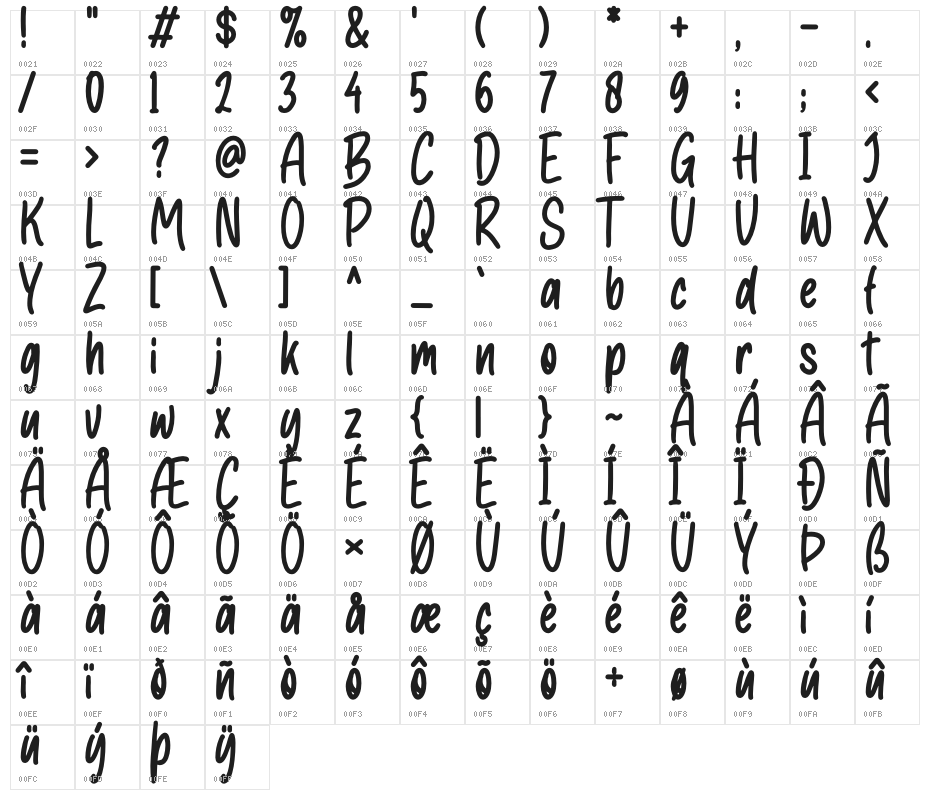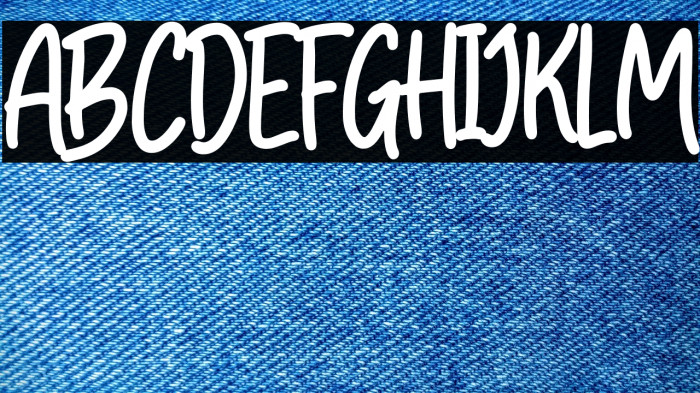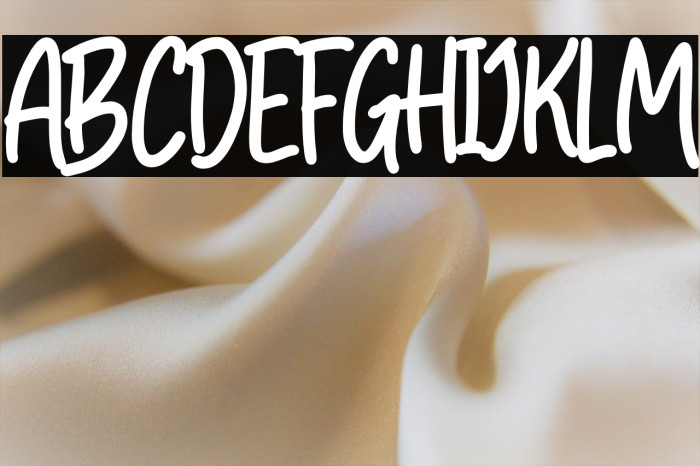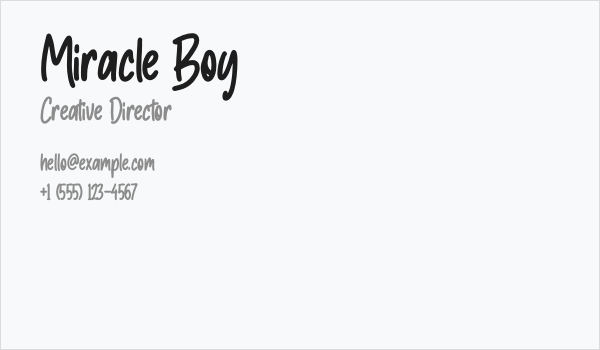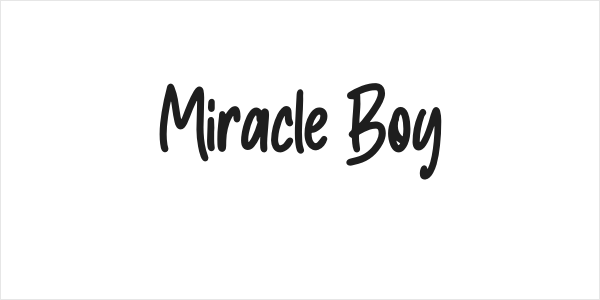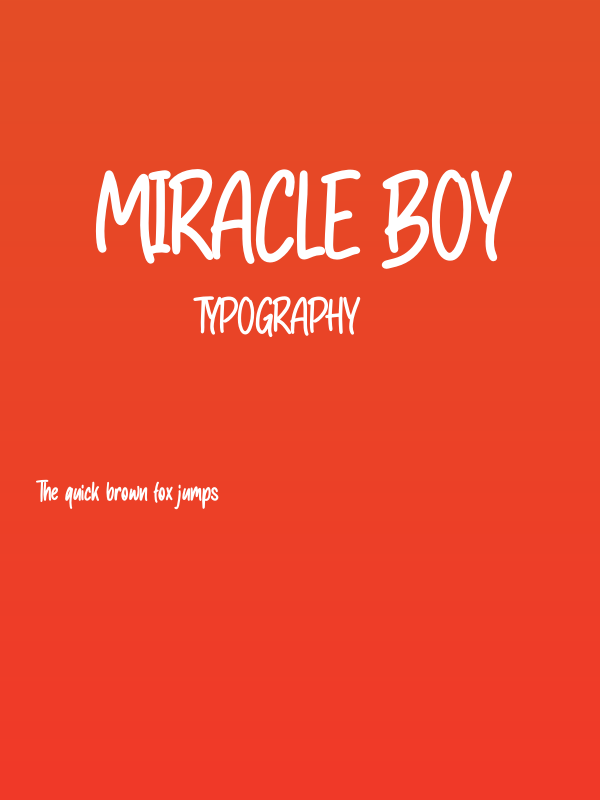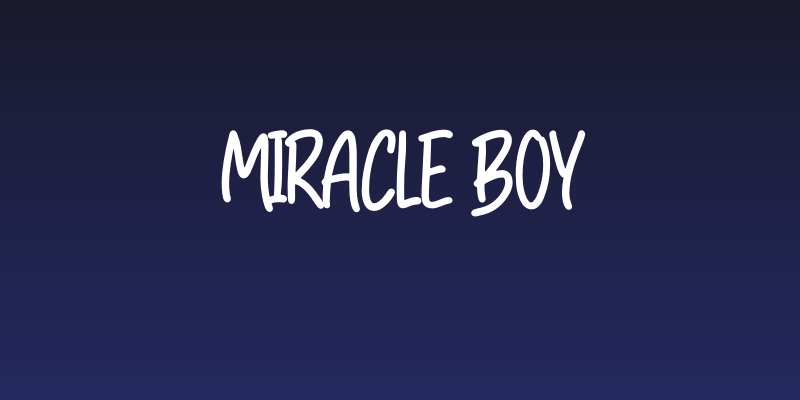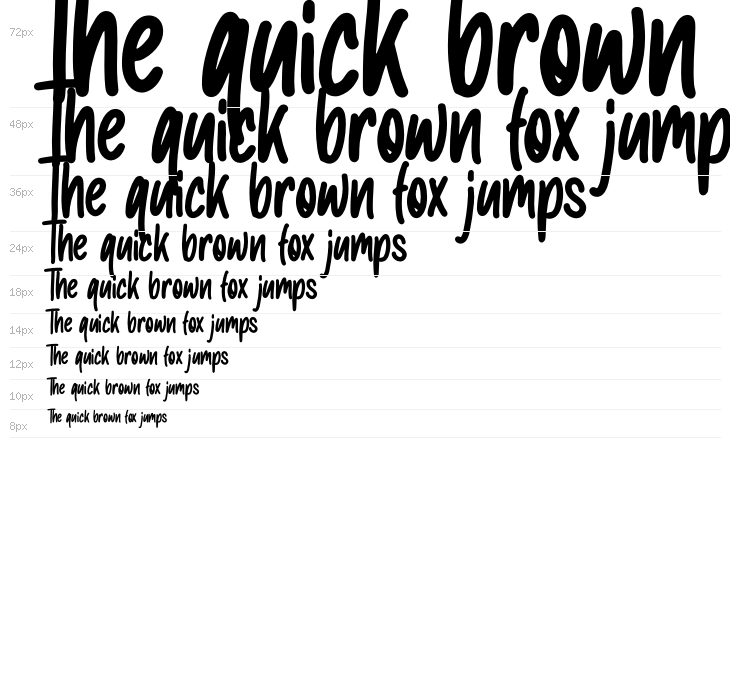
Miracle Boy Font
Miracle Boy Description
This font features a bold and expressive handwritten style, characterized by its thick strokes and playful curves. The uppercase and lowercase letters maintain a consistent flow, giving a sense of movement and energy. The numbers and special characters are crafted with the same dynamic flair, making them stand out with a distinctive personality. The overall appearance is casual yet impactful, suitable for projects that require a personal touch.
| Proposed Projects | Ideal for greeting cards, posters, branding projects, and social media graphics where a personal and lively touch is desired. |